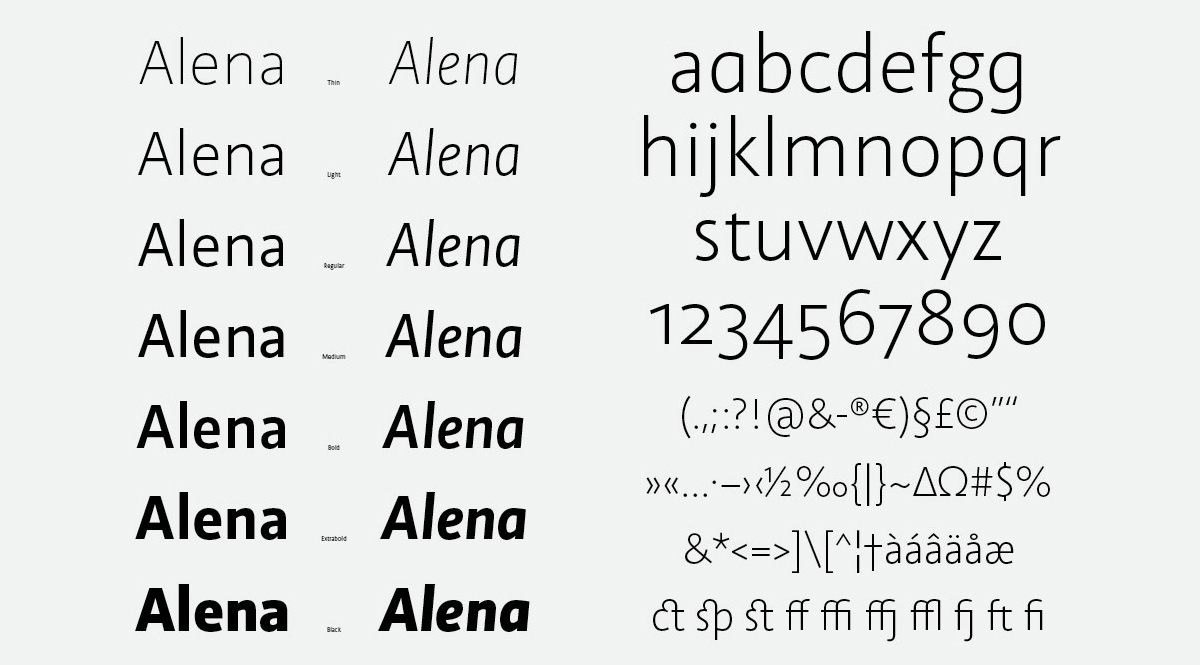
Alena Font
Alena Font is perfect for contemporary fashion brands, modern beauty salon branding, elegant lifestyle magazines, sophisticated web design, premium cosmetic packaging, stylish social media graphics, upscale boutique signage, refined event invitations, contemporary art galleries, and chic personal branding.
What makes Alena Font so exciting is its remarkable ability to embody modern sophistication and contemporary elegance through letterforms that seem to radiate confidence, style, and refined taste with effortless grace. This stunning typeface captures the essence of modern femininity and sophisticated design with characters that perfectly balance strength with elegance, creating a versatile visual language that speaks to today's discerning audiences. The font's refined design elements perfectly merge contemporary aesthetics with timeless appeal, creating an indispensable tool that communicates style leadership, modern luxury, and sophisticated taste, making it essential for brands targeting fashion-forward and style-conscious consumers.
Alena Font comes in multiple font families including Regular, Bold, Light, Italic, Bold Italic, Thin, Medium, and Display variations. Each family member maintains the core sophisticated characteristics while offering different style intensity levels and design approaches to suit various contemporary branding requirements.
The contemporary precision in Alena Font makes it particularly effective for fashion and beauty industries where conveying style authority and modern luxury is crucial for connecting with trend-conscious audiences. Its versatile letterforms work exceptionally well across digital platforms and print applications, maintaining consistent visual impact whether used for large-scale advertising campaigns or intimate personal branding applications.
Fashion marketing professionals recognize how Alena Font transforms ordinary brand communications into sophisticated style statements that resonate with contemporary audiences seeking authentic luxury and modern elegance. The typeface's stylish character set includes comprehensive international language support and advanced typographic features that accommodate complex fashion branding requirements and global market applications.
For creative professionals serving fashion houses, beauty brands, and contemporary lifestyle companies, Alena Font serves as the perfect foundation for establishing memorable visual identities that capture the essential qualities of modern sophistication, style leadership, and contemporary elegance that define successful brands in competitive fashion and lifestyle markets worldwide.